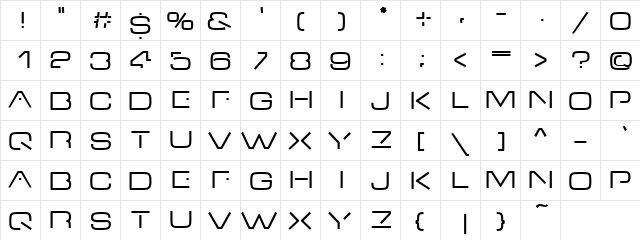
V-Dub Regular
Design Context for V-Dub Typeface
V-Dub is a composed and adaptable typeface that performs quietly and consistently across a wide range of design contexts.